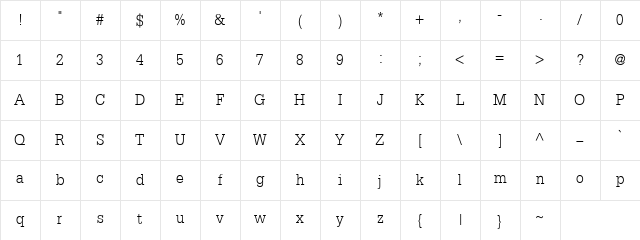
DilleniaUPC Regular
DilleniaUPC Family
Design Context for DilleniaUPC
DilleniaUPC is a composed and adaptable typeface that performs quietly and consistently across a wide range of design contexts.